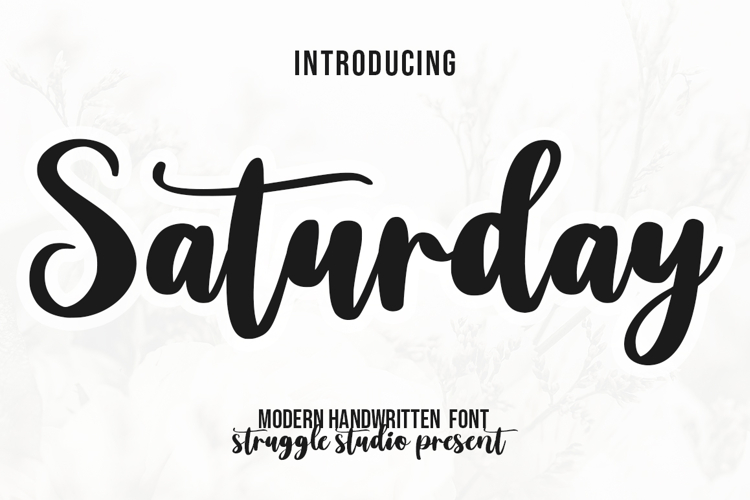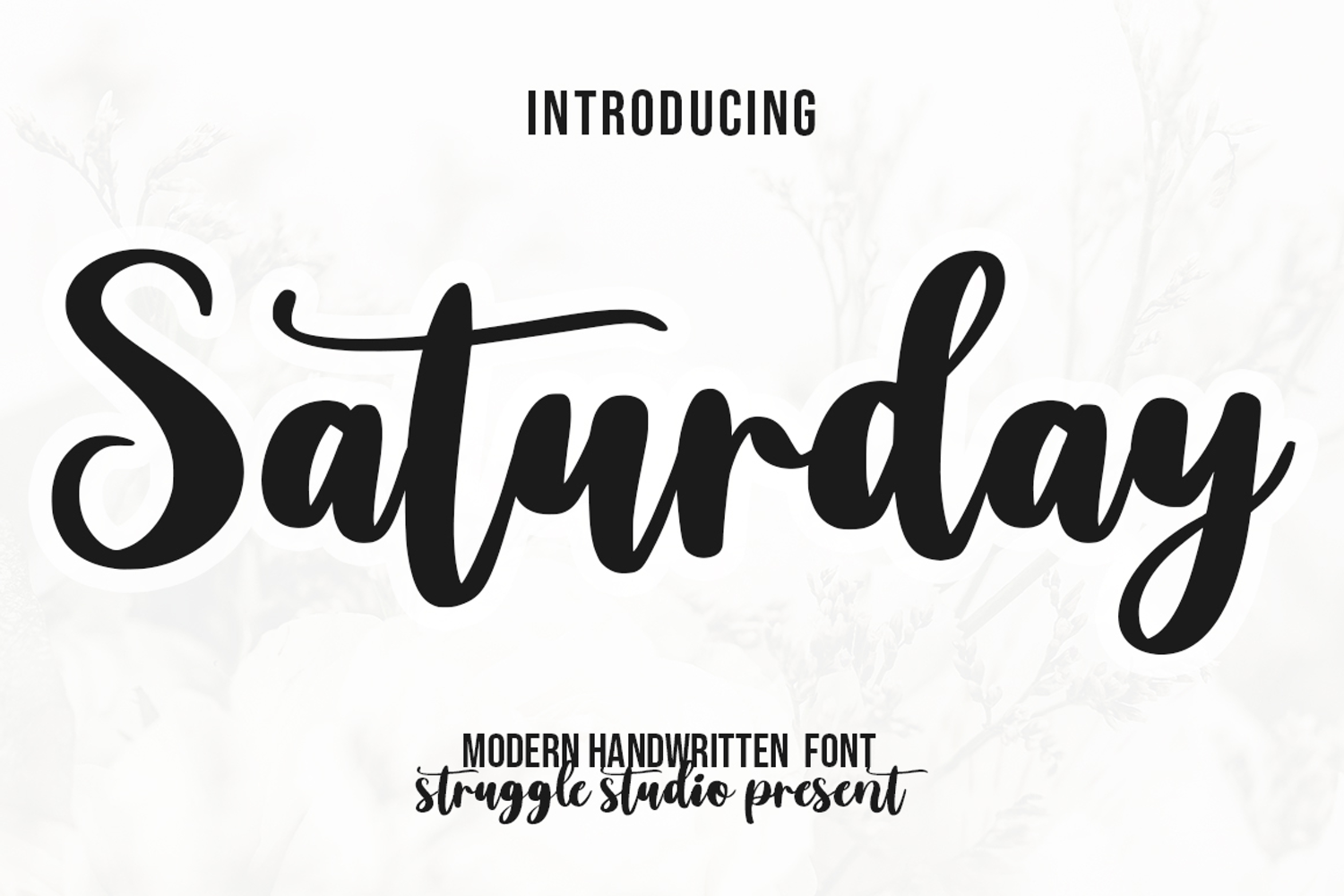
Saturday is a modern handwritten font that combines elegance and bold character in every stroke. With smooth curves and a natural flow, this typeface captures the beauty of authentic handwriting while maintaining excellent readability. Perfect for logos, invitations, branding, packaging, quotes, and social media projects, Saturday brings a fresh and stylish touch to any design.